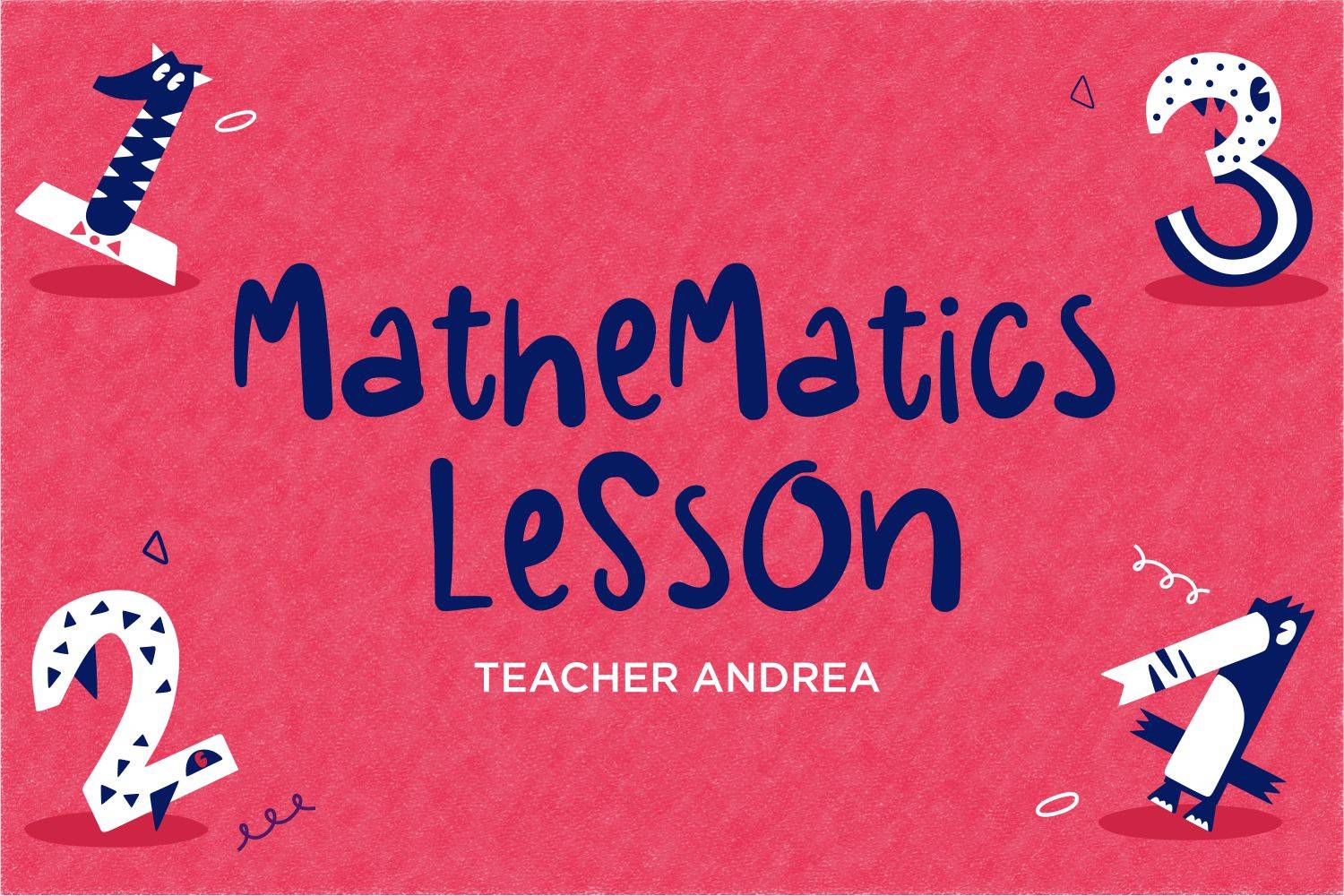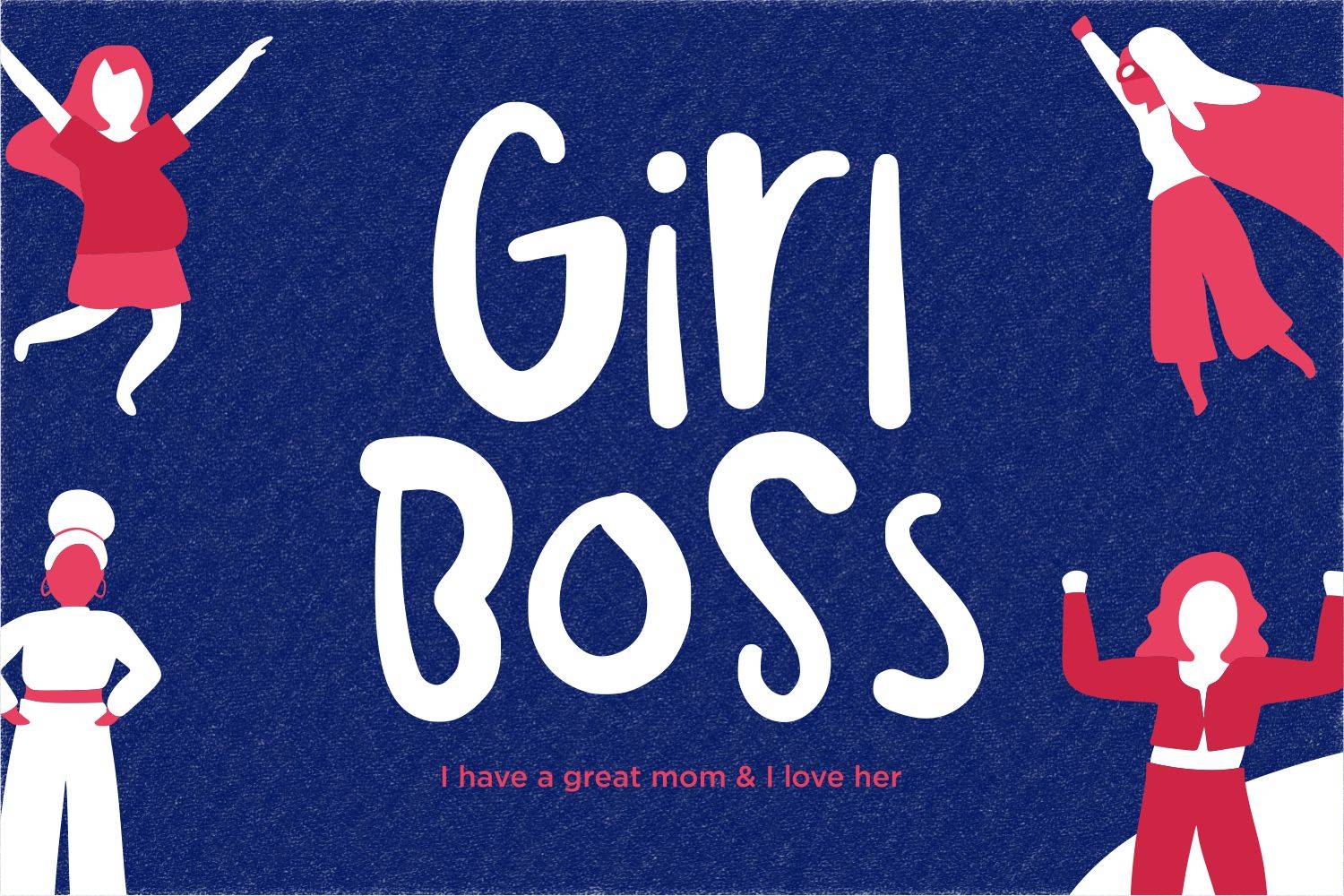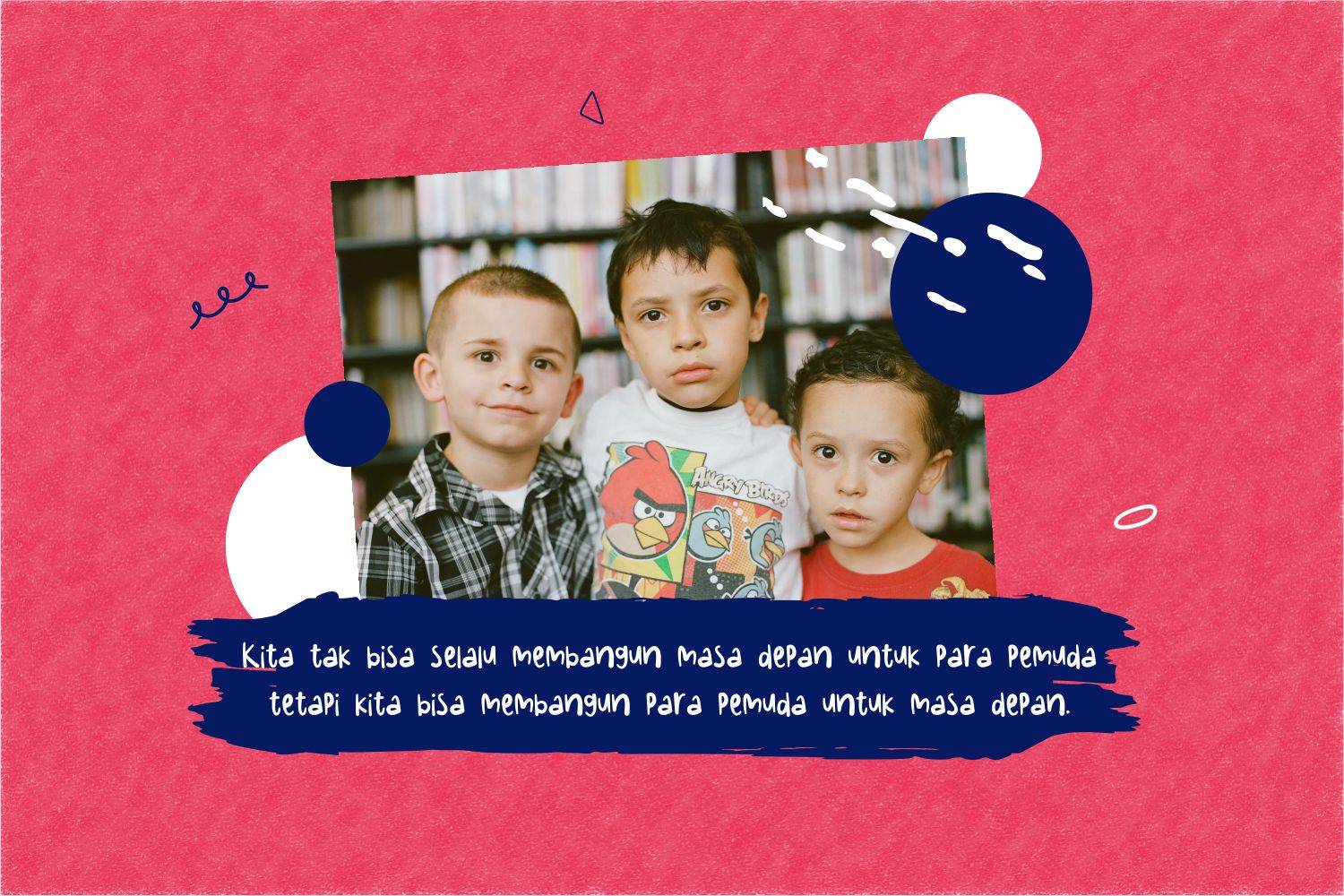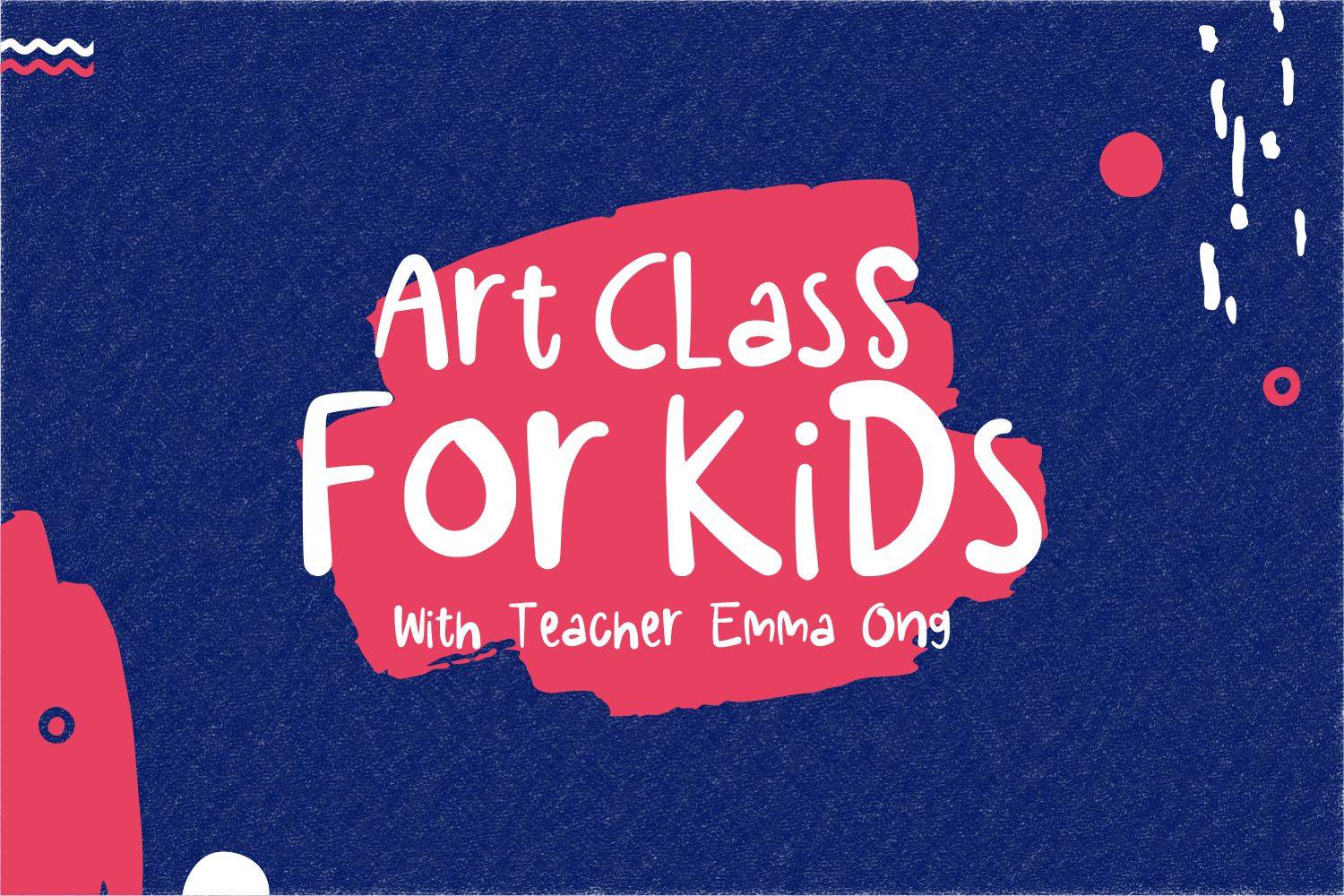
Sing Buneng Bae is a playful, handwritten sans serif font featuring irregular, rounded letterforms with a casual, friendly vibe. Its varying stroke widths and tall x-height give it an approachable, informal look, perfect for conveying warmth and creativity. This font works well in children’s designs, informal branding, and playful headlines, where a fun and personal touch is desired.
Sing Buneng Bae Font